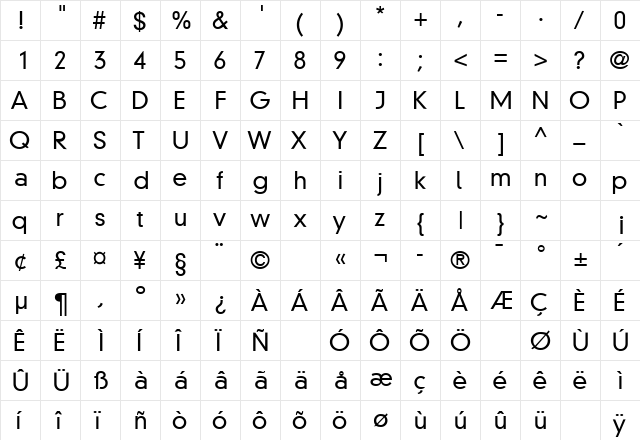
ParallaxGroteskLightSSK Regular
Design Context for ParallaxGroteskLightSSK Typeface
ParallaxGroteskLightSSK takes a clean, functional approach — its unadorned letterforms prioritise legibility and work reliably across screen and print environments. Its slender proportions lend an understated elegance to any composition.
Ideal for fashion and beauty branding, minimal editorial layouts, and premium digital experiences.
Font Pairing: Pair ParallaxGroteskLightSSK with a medium or bold serif for headlines — the weight contrast creates an elegant, high-end feel.
Pro Tip: Avoid using ParallaxGroteskLightSSK at very small sizes where its slender strokes can disappear. It performs best at medium to large sizes.